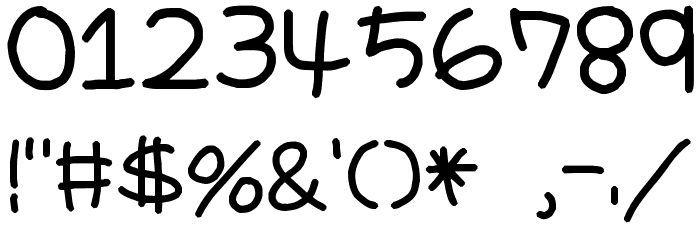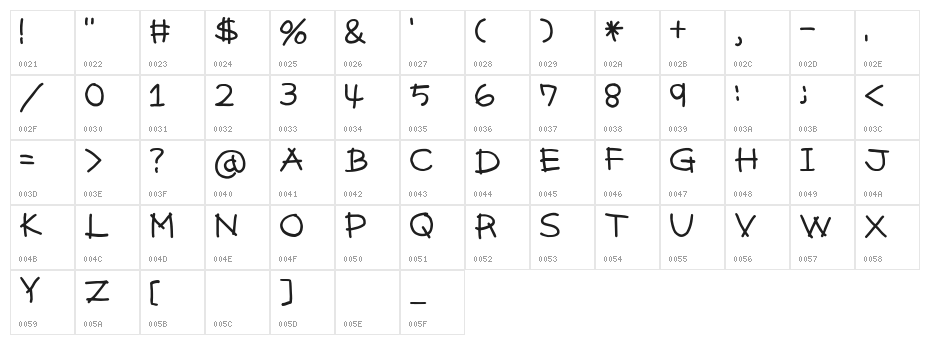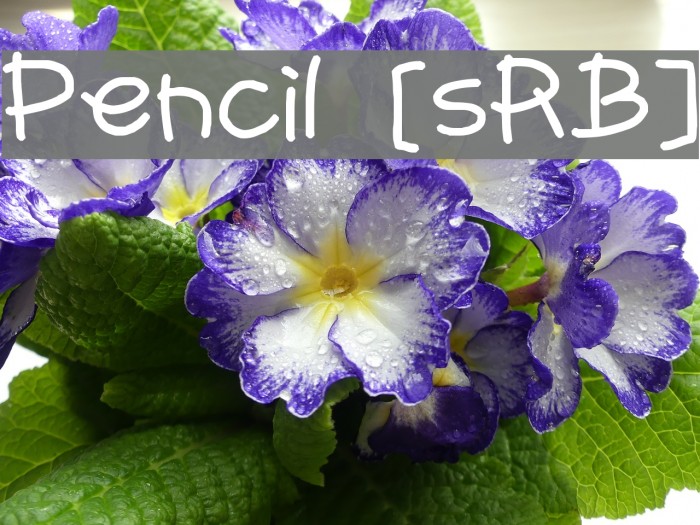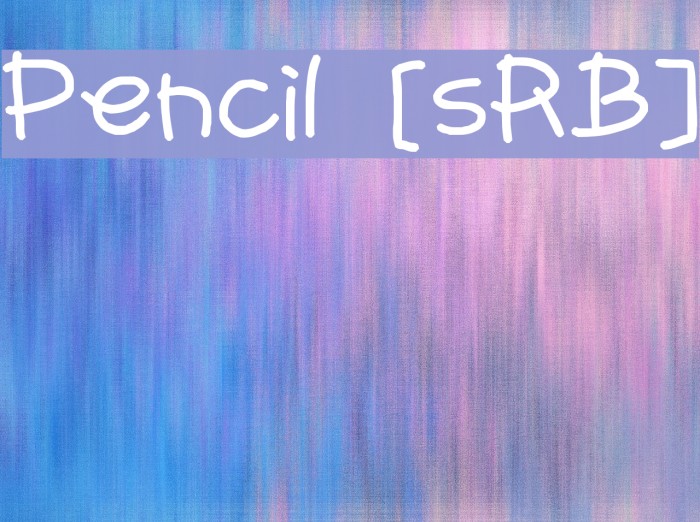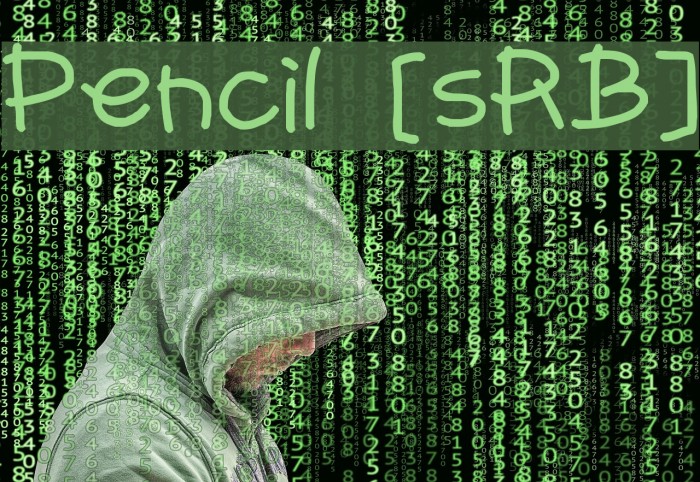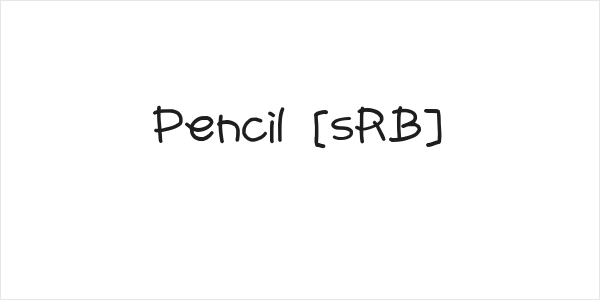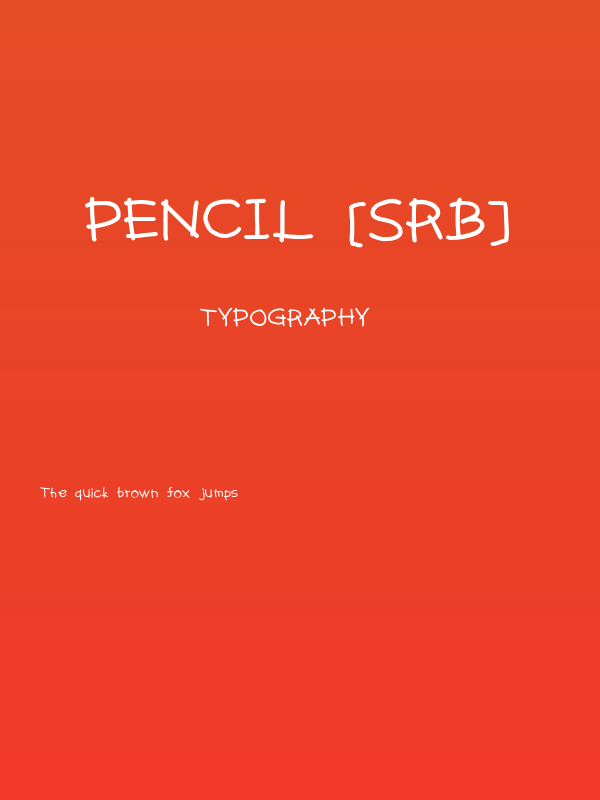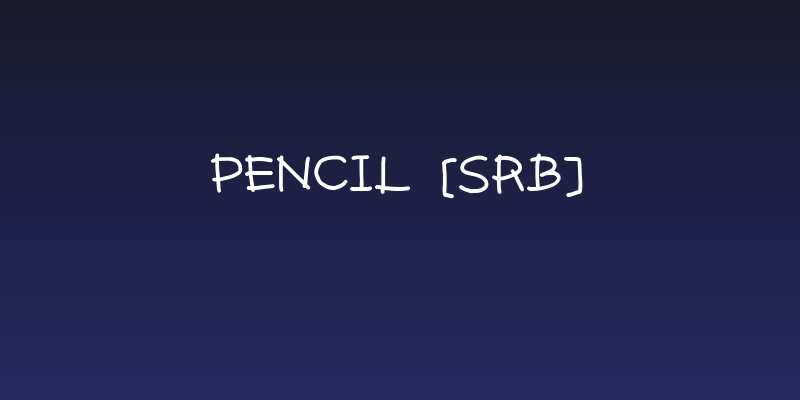
Pencil [sRB] Font
Pencil [sRB] Description
This font features a playful and casual handwritten style, reminiscent of writing with a pencil. The characters are rounded and slightly irregular, giving it a friendly and approachable appearance. The uppercase and lowercase letters maintain a consistent flow, while the numbers and special characters complement the overall aesthetic. The strokes are uniform in thickness, contributing to a cohesive look across all characters. This font is ideal for projects that require a personal touch, such as greeting cards, invitations, or educational materials.
| Proposed Projects | Ideal for greeting cards, invitations, educational materials, and any project needing a personal touch. |